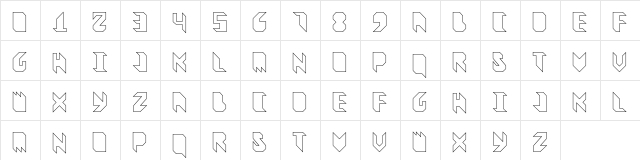
Vitreous Outline
| Designer | Elliott Hefford |
Design Context for Vitreous Typeface
Vitreous brings ornamental detail and strong personality to headlines and identities, where visual impact matters more than quiet functionality.
Font Pairing: Pair with a clean neutral sans-serif for body copy to let Vitreous's character lead without overwhelming the composition.
Pro Tip: Use Vitreous exclusively at display sizes — it was designed to be seen, not read at length. Let a neutral companion handle body copy.